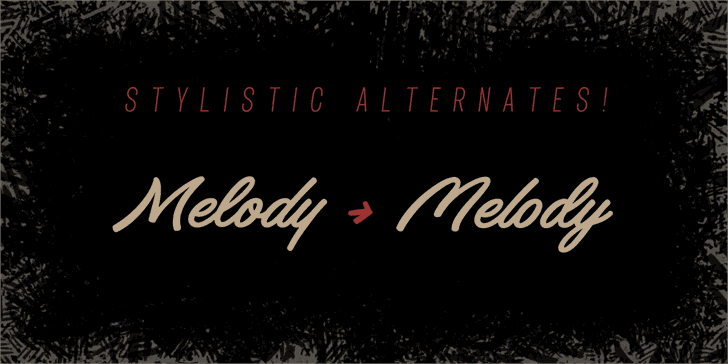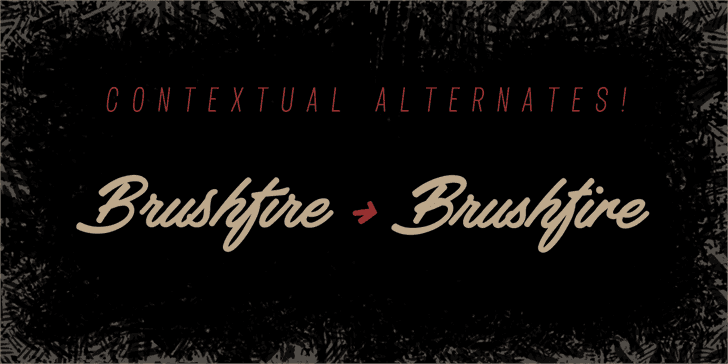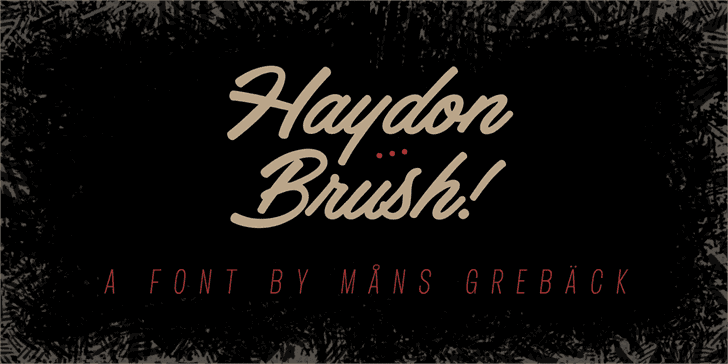
Discover Haydon Brush Font Free, part of the Brush collection—a versatile and unique font perfect for adding a personal touch to your projects. Download it for free and enjoy crafting designs with style, from invitations to social media posts. This font is available exclusively for personal use, giving you the freedom to create without limits. Unlock your creativity with Haydon Brush Font Free today!